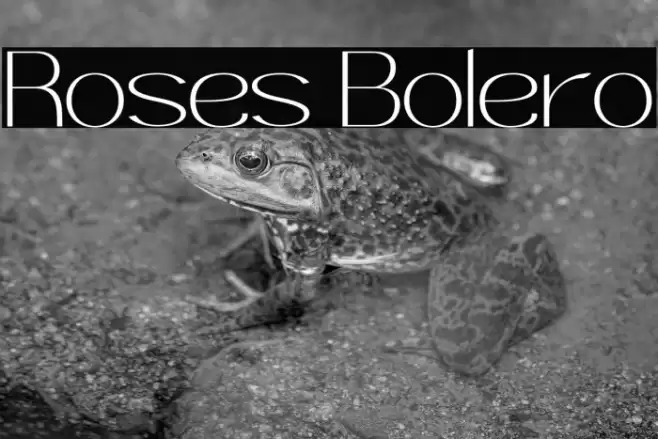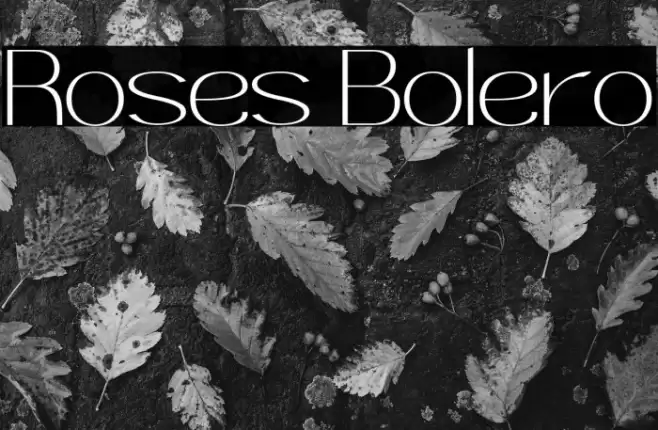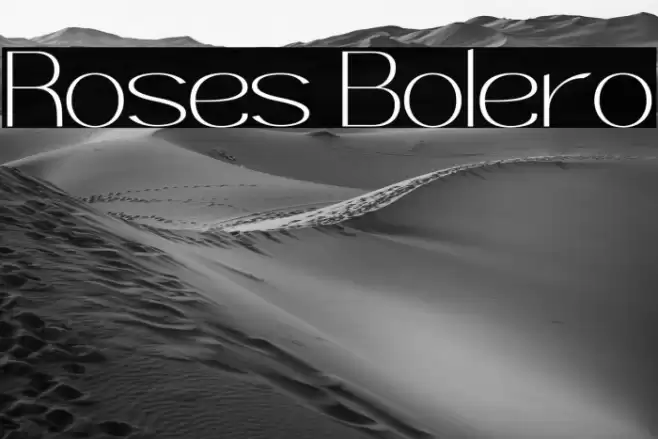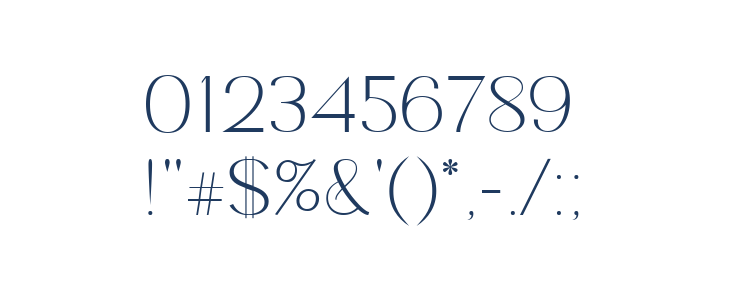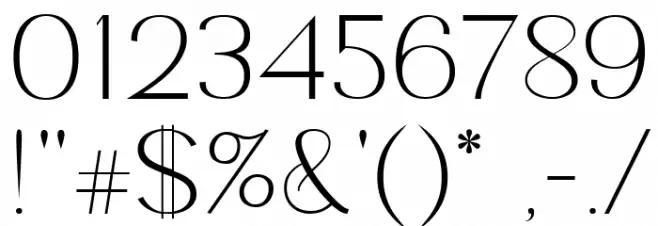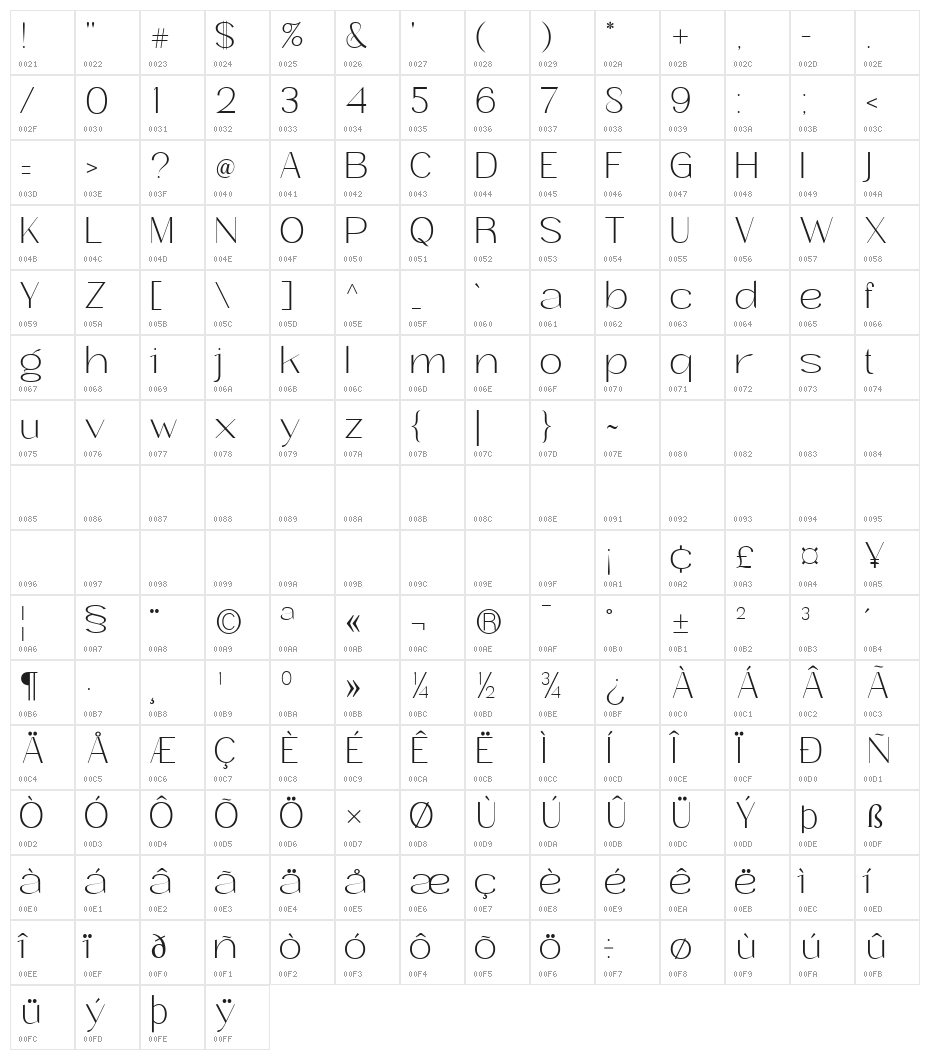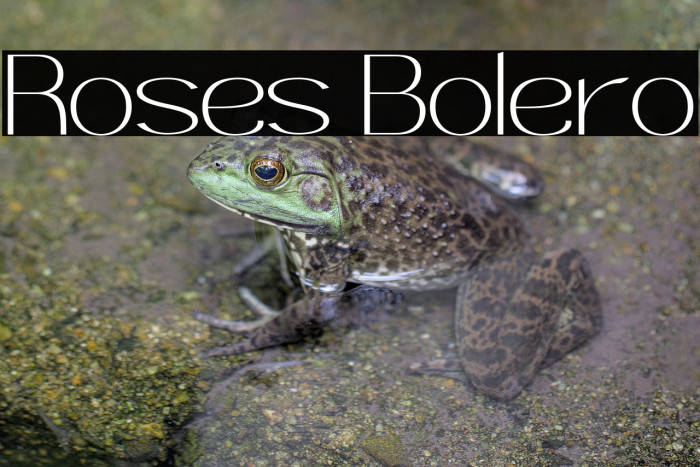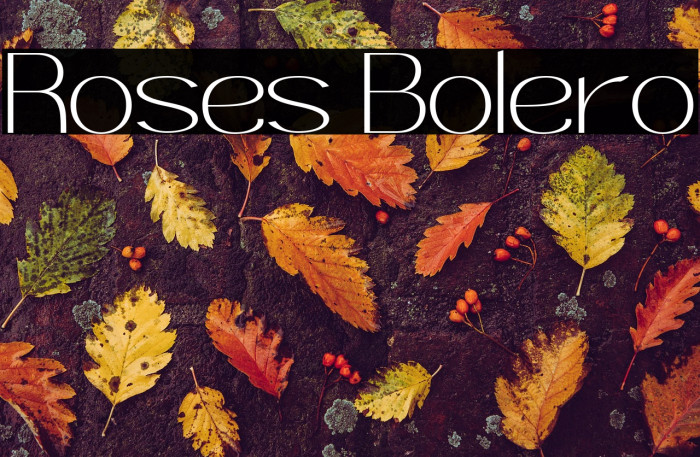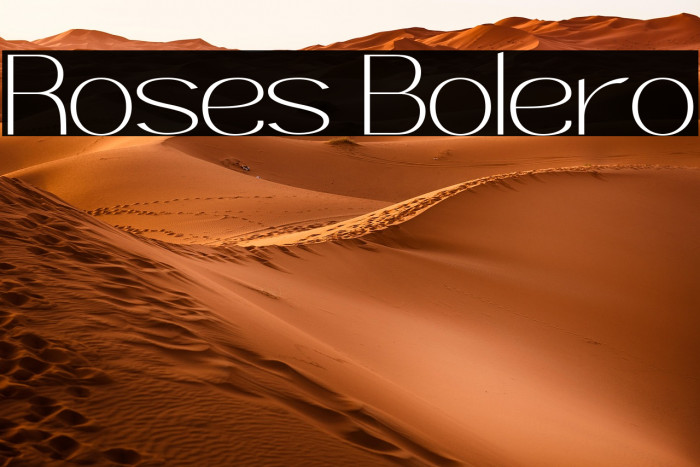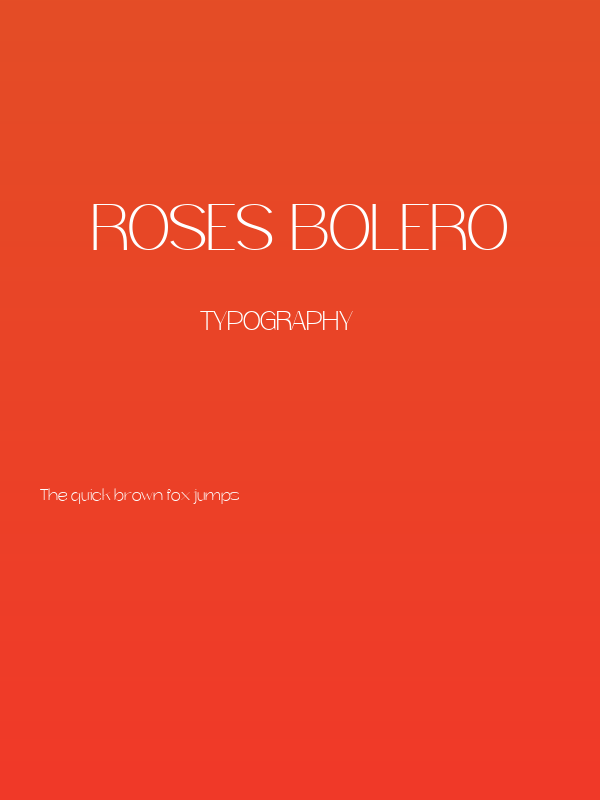
Roses Bolero Font
Roses Bolero Description
This font features a sleek and modern design with clean lines and a minimalist aesthetic. The characters are elegantly crafted, with a subtle contrast in stroke thickness that adds sophistication without overwhelming the eye. The uppercase letters are tall and slender, while the lowercase letters maintain a consistent flow, creating a harmonious balance. The numerals are distinct and easy to read, making them suitable for various applications. Special characters are thoughtfully designed to match the overall style, ensuring versatility across different contexts. The font's refined appearance makes it ideal for projects that require a contemporary and stylish touch.
A sleek, modern font with clean lines and subtle contrast, perfect for contemporary designs from Regular fonts.
- Proposed Projects: Ideal for branding, editorial design, fashion magazines, and luxury product packaging.
- Use Case: Headlines, Logos, Editorial design